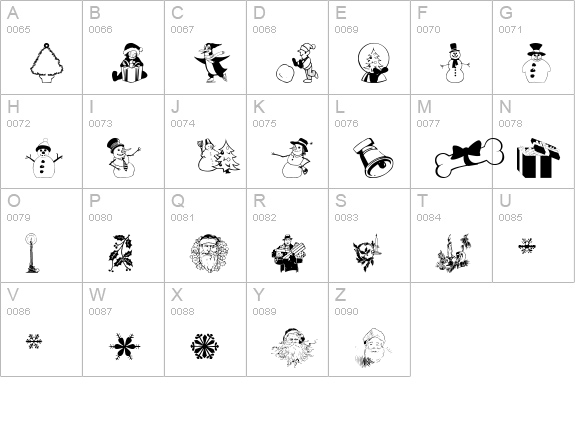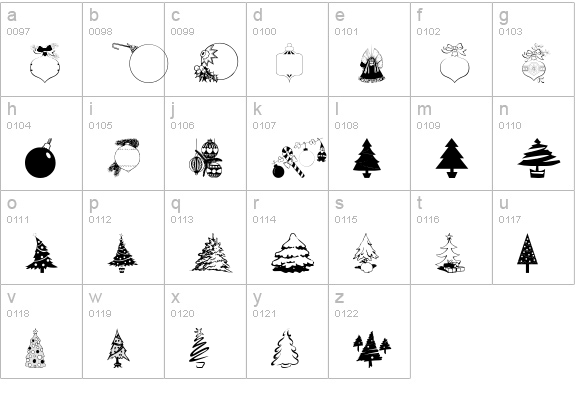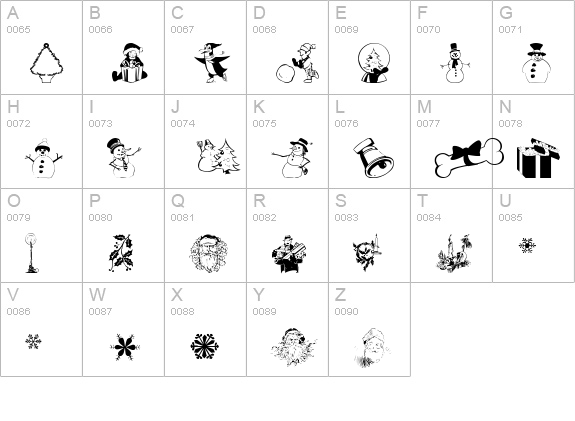
wmchristmas3 Font Details
WMChristmas3 font is a whimsical and festive typeface perfect for adding a touch of holiday cheer to your designs. With its playful and unique letterforms, this font will surely bring a joyful spirit to any project. Its bold strokes and decorative elements make it ideal for creating eye-catching headlines, greeting cards, invitations, and more during the holiday season. The best part? WMChristmas3 font is available for free download at FontsMarket.com. That's right, you can easily access this fun and cheerful font for your personal and commercial projects without any cost. So go ahead and spread some holiday magic with WMChristmas3 font today!